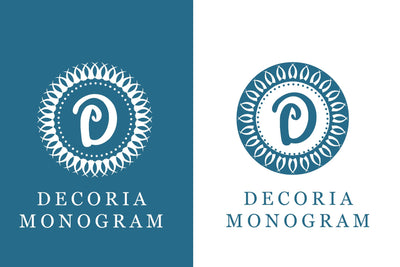
Decoria Monogram
Decoria Monogram is an elegant and aesthetic decorative font. It has very detailed ornaments in each letter. It is suitable for making beautiful wedding invitations, beautiful stationary art, interesting social media posts, and greeting cards. You will surely love the results.